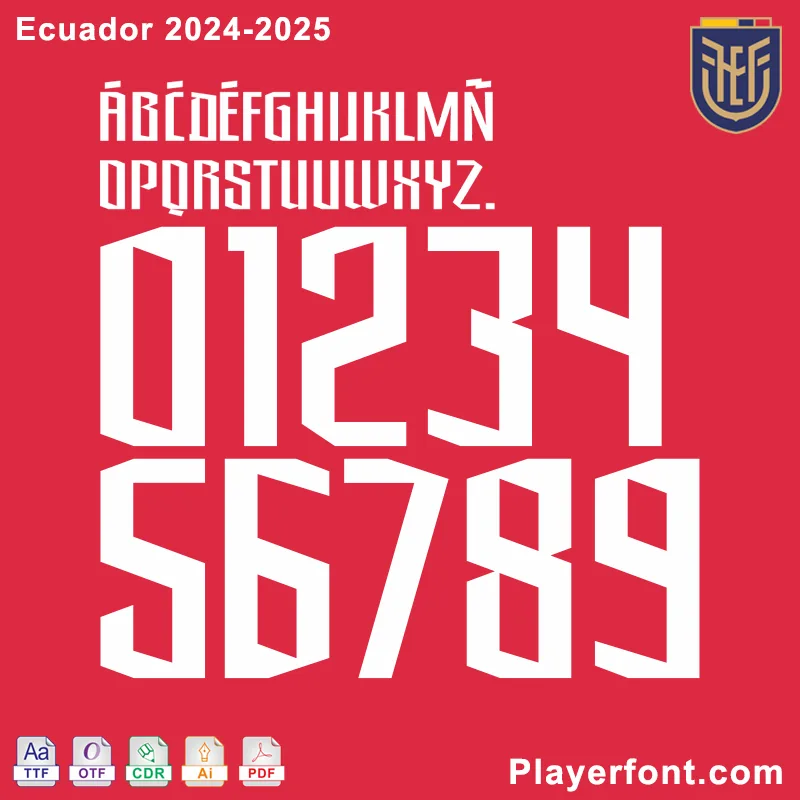
The Ecuador 2024-25 Font is based on the official name set. Can be used custom Ecuador 24-25 Special jersey name set and the World Cup Qualifiers 2024 kit.
Note:Β There is no mark on the number, no small hole/dot or any type of effect (truetype rule quality, it will crash the ttf file), so ttf only has normal font, details can be added through vector software editing.